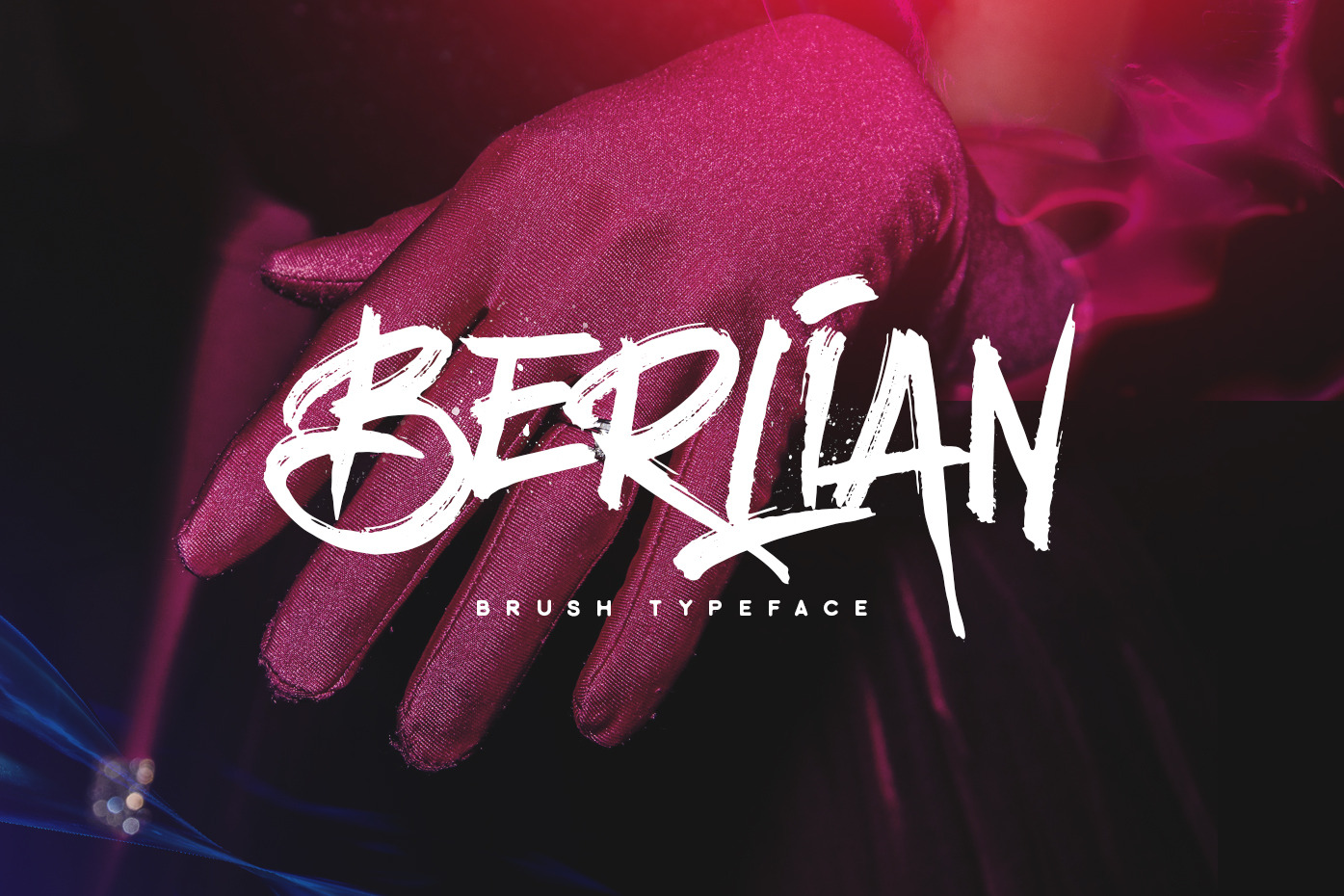
Berlian | Brush Font
With Berlian | Brush Font you can applied to logos, product, display, clothing, quotes and many more. You can applied to all typography with mix and match pairs of letters to fit your own designs. All font files are provided in both TTF & OTF font formats. I recommend installing the TTF, and the OTF only if necessary.